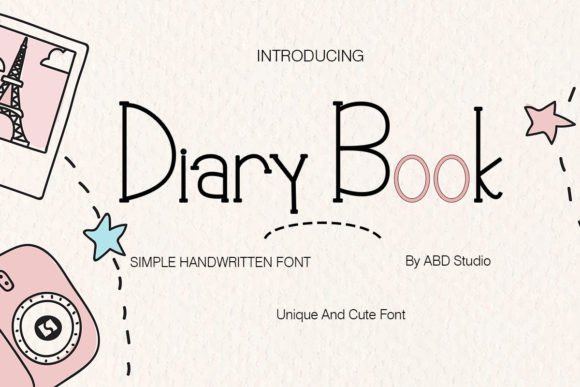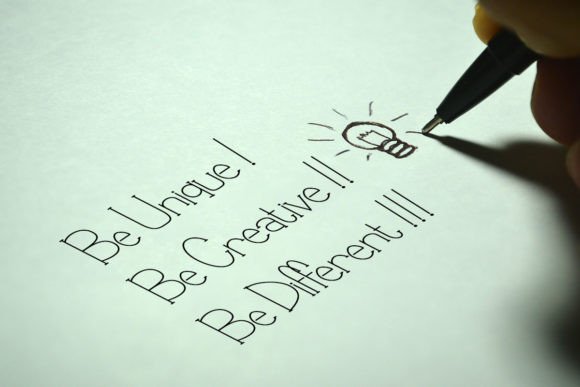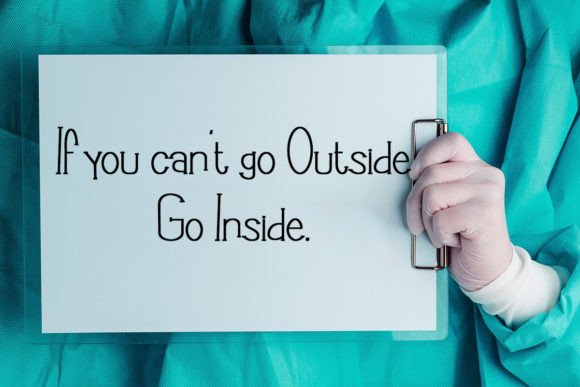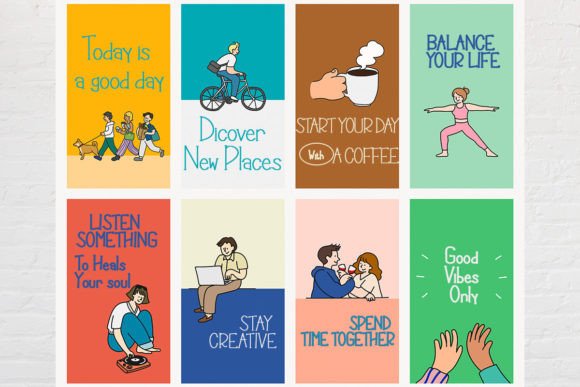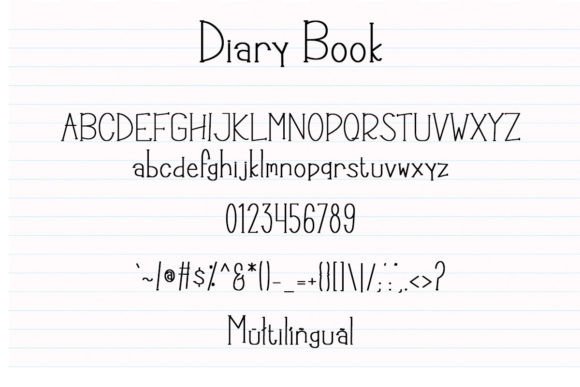
About Diary Book Font
**Enhance Your Designs with “Diary Book” Simple Handwritten Font**
“Diary Book” is a charming and straightforward handwritten font that can effortlessly enhance a wide range of design projects. Here’s how you can use “Diary Book” to add a friendly and approachable touch to your creations:
1. **Greeting Cards:** Design heartwarming and personalized greeting cards using “Diary Book.” Whether it’s for birthdays, holidays, or special occasions, this font adds a warm and friendly vibe to your messages.
2. **Kids’ Crafts:** Create fun and engaging crafts for children with “Diary Book.” From coloring pages to activity books, its simple and legible style makes it suitable for kids of all ages.
3. **Invitations:** Design invitations for casual events like picnics, playdates, or family gatherings with “Diary Book.” It sets the tone for a relaxed and enjoyable time.
4. **Social Media Posts:** Use “Diary Book” to create eye-catching social media graphics. Whether you’re sharing quotes, tips, or announcements, this font adds a touch of approachability to your content.
5. **DIY Projects:** Incorporate “Diary Book” into your DIY projects, such as scrapbooking, journaling, and home decor. Its handwritten style brings a personal and homemade feel to your creations.
6. **Artistic Prints:** If you’re an artist or illustrator, consider using “Diary Book” to add handwritten titles or captions to your artwork. It complements various artistic styles.
7. **Blogs and Websites:** Use “Diary Book” for blog post titles, section headings, or website banners. Its simplicity and readability make it suitable for online content.
8. **Product Labels:** Create labels for homemade products or small businesses with “Diary Book.” Its friendly appearance adds a personal touch to your branding.
9. **Recipe Cards:** Design recipe cards with a cozy and approachable feel using “Diary Book.” Share your favorite recipes with family and friends in a warm and inviting format.
10. **Notepads and Stationery:** Customize notepads, sticky notes, and stationery sets with “Diary Book.” It’s perfect for adding a personal touch to your writing materials.
11. **Book Covers:** Consider using “Diary Book” for book titles and cover designs. Its simplicity and legibility ensure your book is approachable and inviting to readers.
12. **Crafting Workshops:** If you host crafting workshops or tutorials, use “Diary Book” in your promotional materials and instructional guides. It conveys a friendly and welcoming atmosphere.
13. **Calendars:** Create custom calendars with “Diary Book” for a friendly and easy-to-read design. Add important dates and notes in a style that’s both functional and charming.
“Diary Book” is a versatile font that adds a friendly and welcoming touch to your designs. Its simplicity and legibility make it suitable for various applications, from personal projects to professional endeavors. Whether you’re designing for print or digital platforms, “Diary Book” ensures that your messages are approachable and easy to connect with.